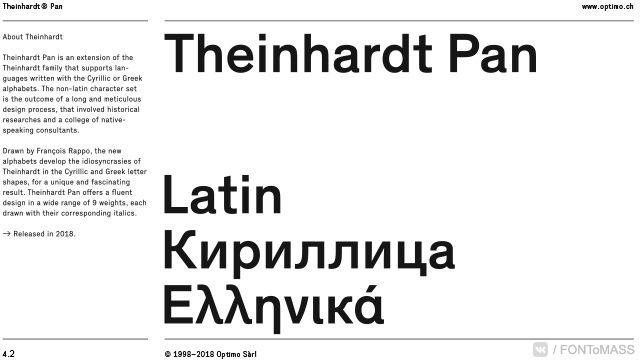
Theinhardt Pan Font
Theinhardt Pan Font is ideal for global corporate communications, international publishing projects, multilingual web platforms, worldwide brand campaigns, universal signage systems, cross-cultural educational materials, pan-national government documents, comprehensive linguistic research, diverse cultural exhibitions, and inclusive communication initiatives.
What makes Theinhardt Pan Font so exciting is its exceptional ability to transcend linguistic boundaries and provide seamless typographic unity across the entire spectrum of global languages and writing systems. This universally engineered typeface features comprehensive letterforms with pan-linguistic proportions and culturally sensitive character variations that immediately convey inclusivity, global reach, and the unifying power of universal design principles. The font's internationally optimized construction and culturally aware aesthetic create an instant sense of worldwide accessibility and cross-cultural respect, making it ideal for projects that need to communicate global unity, international cooperation, and the essential importance of inclusive communication to audiences spanning diverse linguistic communities and cultural backgrounds worldwide.
The Theinhardt Pan Font family typically includes comprehensive multilingual weights and universal styles, often featuring light through bold weights along with corresponding italic versions and extended character sets. Pan-linguistic font families frequently offer extensive Unicode support including Latin, Cyrillic, Greek, and other writing systems, plus specialized diacritical marks and cultural symbols that ensure optimal typography across diverse international communication requirements and cross-cultural professional applications.
The pan-linguistic nature of Theinhardt Pan Font makes it particularly effective for international applications where cultural sensitivity and linguistic accuracy are essential for respectful global communication and professional credibility. International marketers and cross-cultural communicators will find this font especially valuable for projects that must establish immediate cultural respect while supporting complex multilingual content requirements and diverse communication standards.
What distinguishes Theinhardt Pan Font is its remarkable ability to honor linguistic diversity while maintaining systematic unity across all global communication contexts. This inclusive characteristic makes it suitable for both conservative international applications and progressive cross-cultural communications where projecting global competence and cultural sensitivity must coexist harmoniously.
Professional designers recognize that Theinhardt Pan Font brings invaluable global credibility to projects across industries including international business, cross-cultural education, global publishing, and multicultural services. Its pan-linguistic character and universal appeal make it essential for organizations seeking comprehensive typographic solutions that will provide consistent performance and cultural respect across all contemporary global communication challenges.
The systematically inclusive design of Theinhardt Pan Font ensures optimal cross-cultural performance across all international professional communication requirements while honoring the fundamental importance of linguistic diversity.